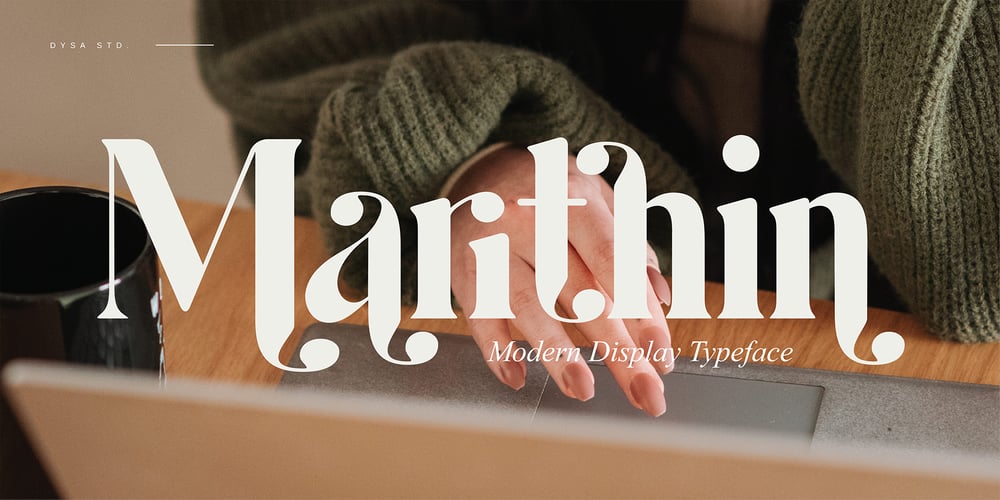
Marithin Font Family was designed by Yusup Saputra and published by DYSA Studio. Marithin contains 1 styles and family package options. Marithin is a New Modern Display Typeface. This another collection of Serif is perfect for your next branding project, excellent for your business. Marithin have a smooth edges, so this font gives an authentic handcrafted feel style.